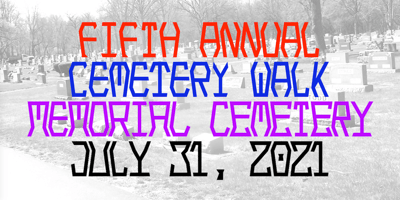
Hexonu
Hexonu font
Hexonu Font Family was designed by Robert Schenk and published by Ingrimayne Type. Hexonu contains 6 styles and family package options. Hexonu is a weird, awkward, monospaced font family. In place of true lower-case letters, it has a second set of capitals that, through the magic of the OpenType contextual alternatives (calt) feature, automatically alternates with the set on the upper-case keys. If one wants to use only one set of letters, the contextual alternatives must be turned off and character spacing adjusted.Hexonu is another effort to create a font with alternating sets of letters (see PoultySign, Lentzers, and Caltic for others). The base shape for forming the letters is a lopsided hexagon that resembles an old coffin. In four of the six family members, the alternating shape is a distorted hour-glass. In the other two, coffin shapes heads-up alternate with coffin shapes heads-down. The family was created as an experiment with the calt feature and not for any particular use. It does not work as text but its bizarreness makes it appropriate for some poster and signage applications.